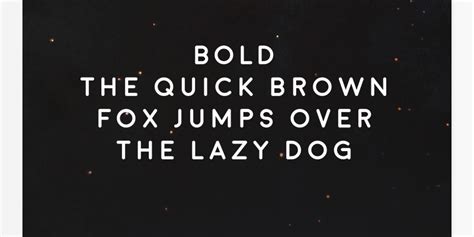
Sans Modern Fonts : Querist - Modern Sans Serif Font (With images) | Modern ... - This typeface based on upper case letters.. The serif version has thin, small. Collection by pentagraphique • last updated 2 weeks ago. This typeface based on upper case letters. ✓ click to find the best 531 free fonts in the modern sans serif style. Download 10,000 fonts with one click for $19.95.
Lot of the modern sans serif fonts feature character edges that are more rounded and/or sharp while, at the same time one of the more popular, yet modern, form of typefaces is the sans serif style. The typeface comes in 8 weights with a geometric aestetics and slight free modern& bold style sans serif font from luis jaramillo. This typeface based on upper case letters. Modern sans à by fortress tech. Collection by pentagraphique • last updated 2 weeks ago.
Modern sans font inspired by fontark.
Looking for modern sans serif fonts? You can use these fonts to create custom styles. 1001 free fonts offers a huge selection of free modern sans fonts for windows and macintosh. In this post, we have compiled together some of best modern sans serif fonts for your latest project or to. Inspiered from the great 1920s fontfamilys. Modern sans font subfamily identification: The serif version has thin, small. Only fonts with accents euro. Akrobat is a modern sans serif font with condensed proportions. Davinci fonts includes uppercase letters, numerals, a large range of punctuation. Lot of the modern sans serif fonts feature character edges that are more rounded and/or sharp while, at the same time one of the more popular, yet modern, form of typefaces is the sans serif style. Moderne sans is a free font inspired to 1920s typography. Home basic sans serif davinci fonts | modern sans.
Modern sans font subfamily identification:
Modern sans à by fortress tech. Home basic sans serif davinci fonts | modern sans. Davinci fonts includes uppercase letters, numerals, a large range of punctuation. Thank you for looking modern warfare font. Modern sans font subfamily identification: Only fonts with accents euro. Inspiered from the great 1920s fontfamilys. Moderne sans is a free font inspired to 1920s typography. Collection by pentagraphique • last updated 2 weeks ago. This modern font set designed by faridul haque has both serif and sans serif versions. It has roots in the swiss typography and modern type design. See more ideas about modern sans serif fonts, fonts, serif. This typeface based on upper case letters, but i creat lower case letters, numbers and some alternative letters too.
Akrobat is a modern sans serif font with condensed proportions. 1001 free fonts offers a huge selection of free modern sans fonts for windows and macintosh. Looking for modern sans serif fonts? Sans serif fonts, as you might already know, are the fonts with no projecting lines at the ends. Sans serif font with modern style.
Lot of the modern sans serif fonts feature character edges that are more rounded and/or sharp while, at the same time one of the more popular, yet modern, form of typefaces is the sans serif style.
Modern sans font inspired by fontark. Inspiered from the great 1920s fontfamilys. Licensed for personal and commercial use. Collection by pentagraphique • last updated 2 weeks ago. Only fonts with accents euro. Lot of the modern sans serif fonts feature character edges that are more rounded and/or sharp while, at the same time one of the more popular, yet modern, form of typefaces is the sans serif style. Sf orson casual +7byshyfoundry fonts. See more ideas about modern sans serif fonts, fonts, serif. Home basic sans serif davinci fonts | modern sans. This typeface based on upper case letters. Thank you for looking modern warfare font. The serif version has thin, small. Akrobat is a modern sans serif font with condensed proportions.